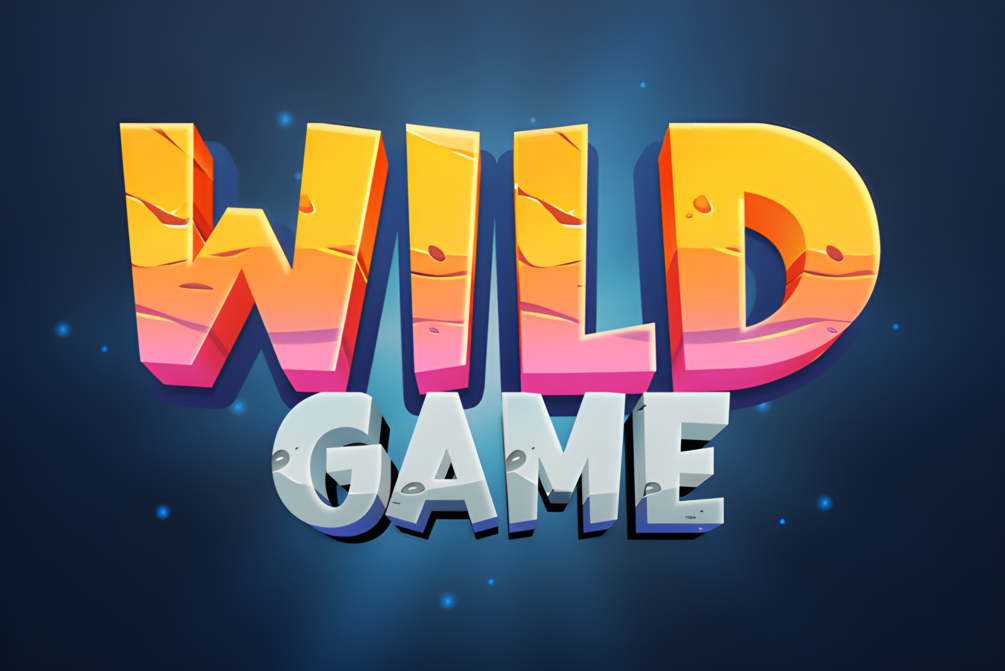
Super Space Font
Super Space is a delightful display font characterized by its fun, cool, and thick lettering.
This font exudes playfulness and authenticity, making it the perfect choice for any children's activity or school project.
Whether you're designing posters, flyers, or educational materials, Super Space adds a touch of charm and creativity to your work.
Enhance your designs and captivate young audiences with this lovely font.
Perfect for making your projects stand out and bringing joy to every creation.
Super Space is a playful, thick-lettered display font perfect for children's activities and school projects. It adds charm and creativity to posters, flyers, and educational materials, making your designs stand out and captivate young audiences.